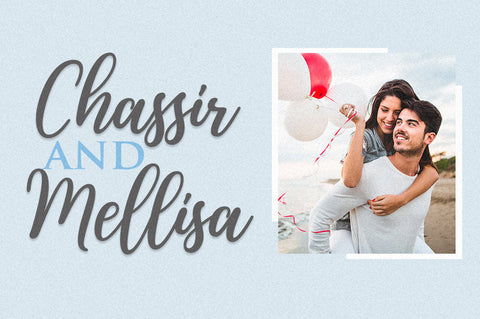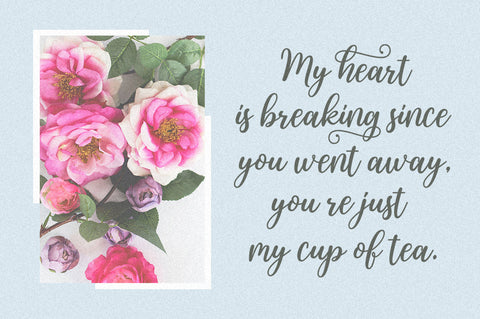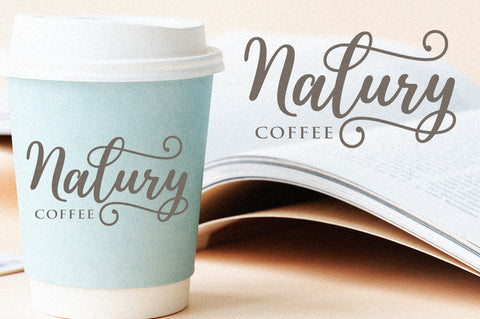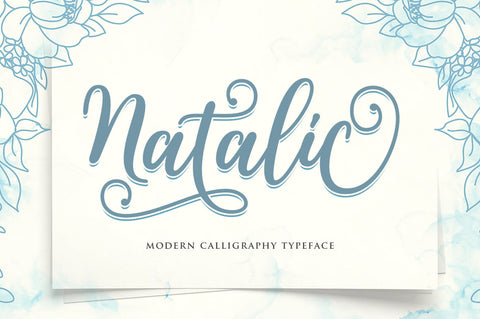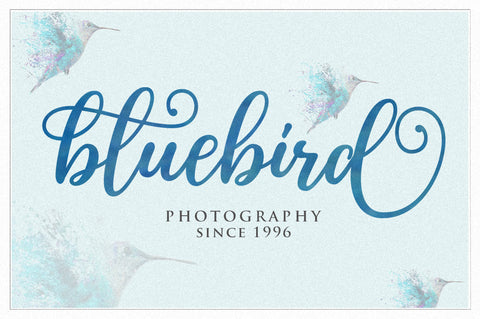
Natalic | Modern Calligraphy Font
Natalic Script is a modern and sweet calligraphy typeface with characters that dance along the baseline. It has a casual and yet elegant touch. It can be used for various purposes such as logos, wedding invitations, headings, t-shirts, letterhead, signage, lables, news, posters, badges etc.
The fonts include OpenType features with stylistic alternates, ligatures and multiple language support.